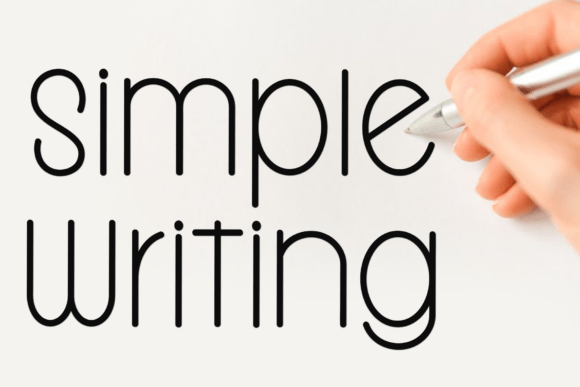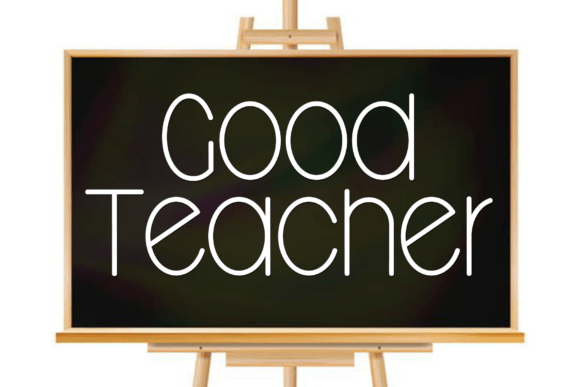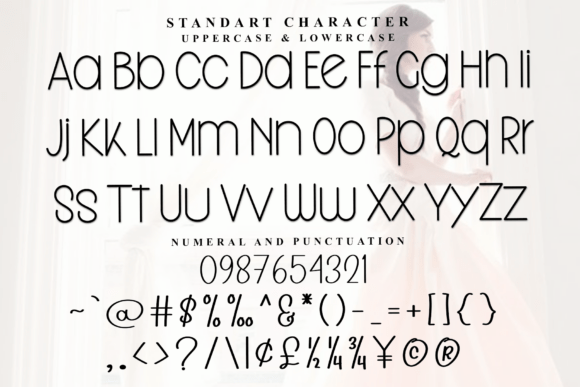
Cavier Dream Font
Cavier Dream is a sleek and stylish sans serif font with a touch of luxury. Its rounded shapes and tall, thin lines give it a soft modern look that works beautifully for branding, fashion, editorial layouts, and wedding design. Sophisticated yet easy to read, Cavier Dream brings a refined elegance to every project.